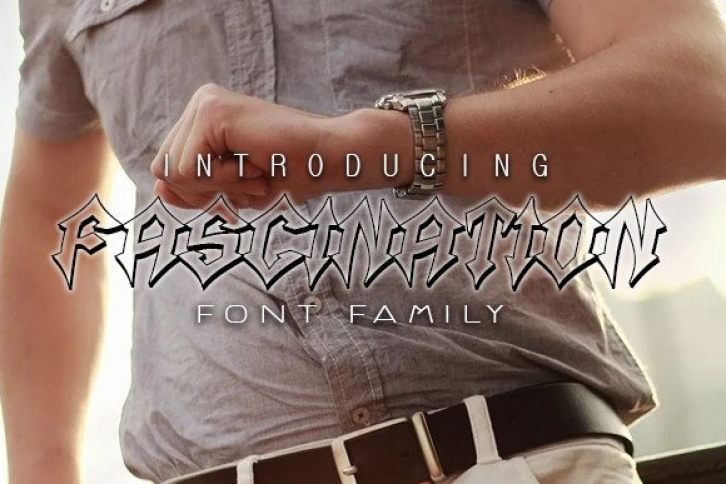
Fascination is a cool and unique display font. Whatever the topic, this font will be a wonderful asset to your font library, as it has the potential to enhance any creation.